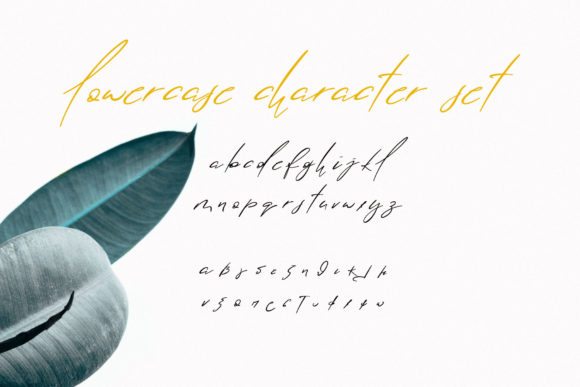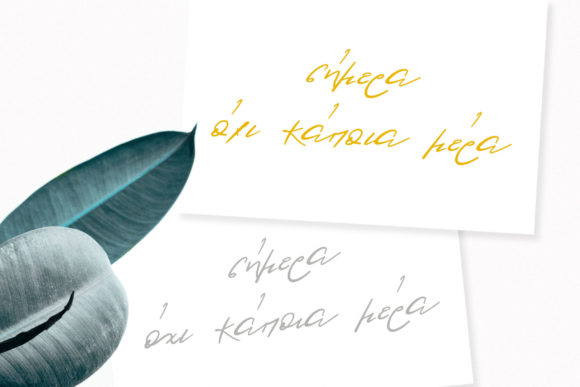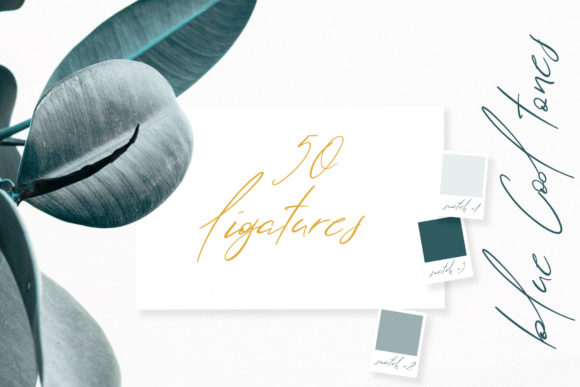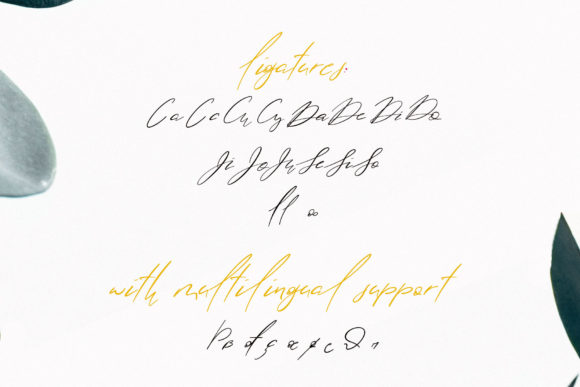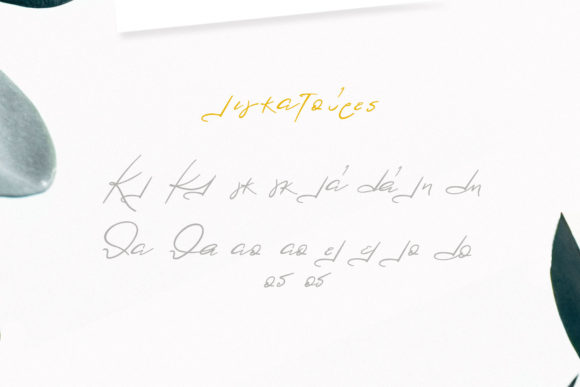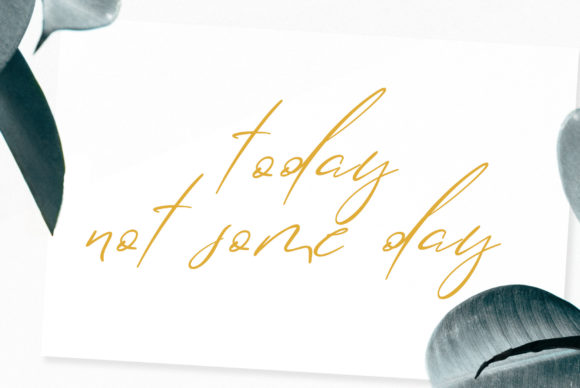
Introduction to Lolotte Font
Have you ever found yourself staring at a blank canvas, desperate for the perfect font to bring your creative vision to life? I know I have. It’s that moment when everything hinges on a single design element – the font. For designers, the right font can make or break a project. That’s why I’m excited to share with you a hidden gem that’s been making waves in the design community: the Lolotte Font.
This signature handwritten font boasts an incredibly authentic look, making it a valuable resource for designers working on creative projects. With its casual elegance, the Lolotte Font is perfect for adding a touch of sophistication to your next design. Whether you’re working on a brochure, a website, or a social media campaign, this high-quality font is sure to elevate your design.
Key Features of Lolotte Font
- Perfect for use in digital design, print media, and web development projects, thanks to its high-quality and versatile nature.
- Designed to be easily scalable, making it suitable for use in various contexts, from small text to large headings.
Honest Review: Lolotte Font
I recently came across the Lolotte Font, and I’m excited to share my thoughts on this design resource. As a designer, I’m always on the lookout for high-quality fonts that can elevate my creative projects.
What works well: ✨ The Lolotte Font is incredibly versatile, making it perfect for a wide range of design projects. Its elegant and sophisticated design style lends itself well to various applications, from logos and branding materials to editorial and advertising designs.
Some notable features of the Lolotte Font include:
- High-quality design with crisp lines and subtle texture
However, there are some limitations to consider: ⚠️ The Lolotte Font is only available in a limited number of weights, which may not be ideal for designers who require a wider range of font styles.
Overall, I’m impressed with the Lolotte Font. Its unique design style and versatility make it a valuable addition to any designer’s toolkit. If you’re looking for a high-quality font to elevate your creative project, the Lolotte Font is definitely worth considering.
Introduction to Lolotte Font
The Lolotte Font is a high-quality design resource that can add a touch of elegance to any creative project. With its unique style and transparent background, it’s perfect for designers who want to create stunning visuals.
Tips for Getting the Most Out of Lolotte Font
To get the most out of Lolotte Font, experiment with different font sizes, colors, and combinations. You can also use it to create stunning titles, headings, and body text.
Common Use Cases for Lolotte Font
The Lolotte Font is perfect for designers who want to create stunning visuals for a variety of projects, including:
- Blog posts and articles